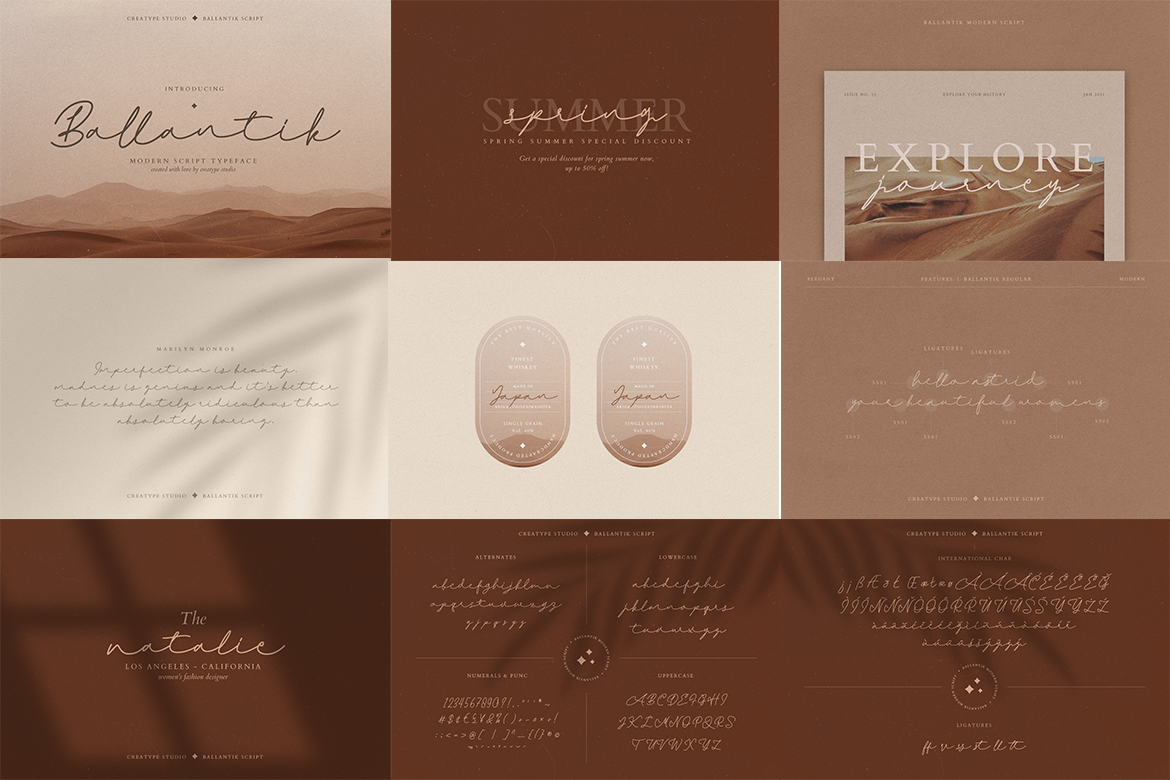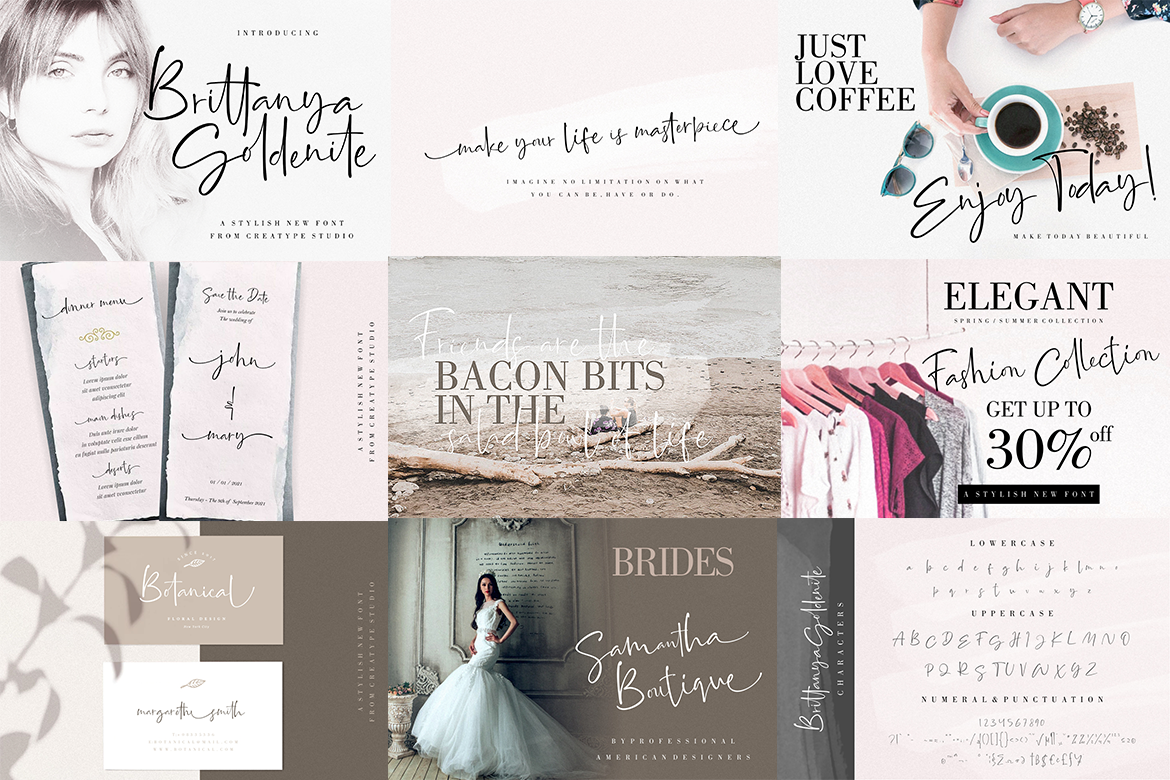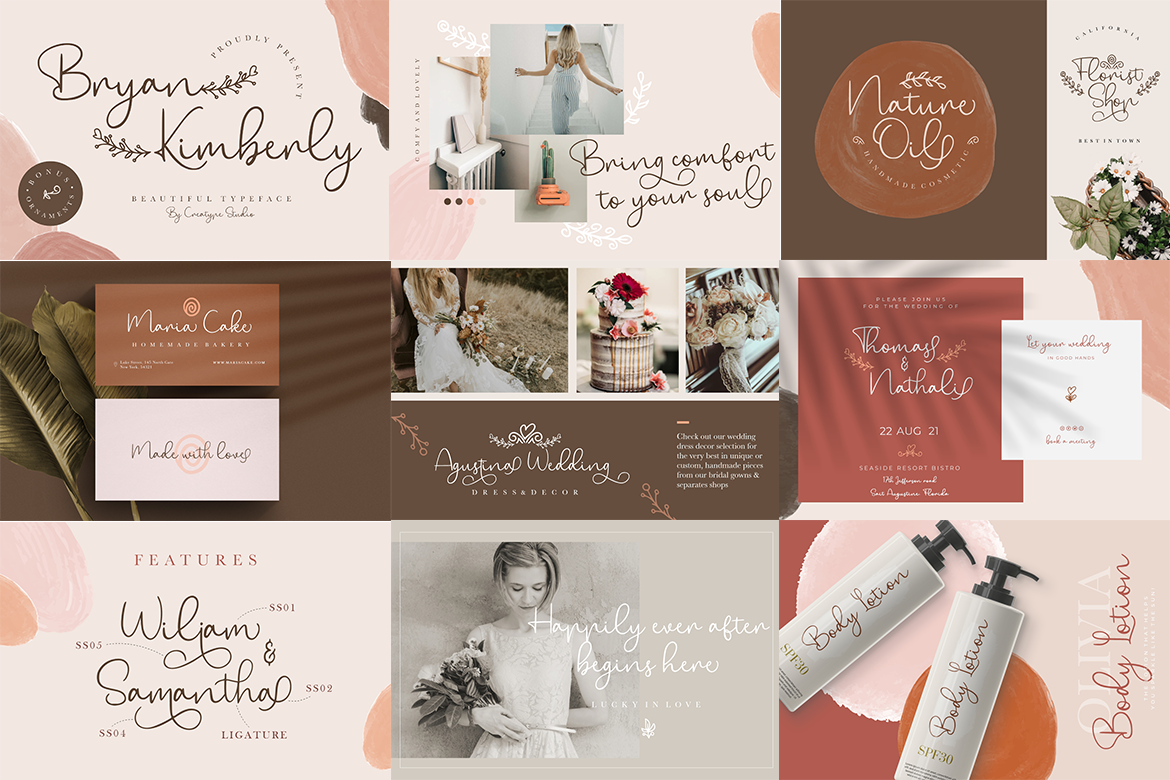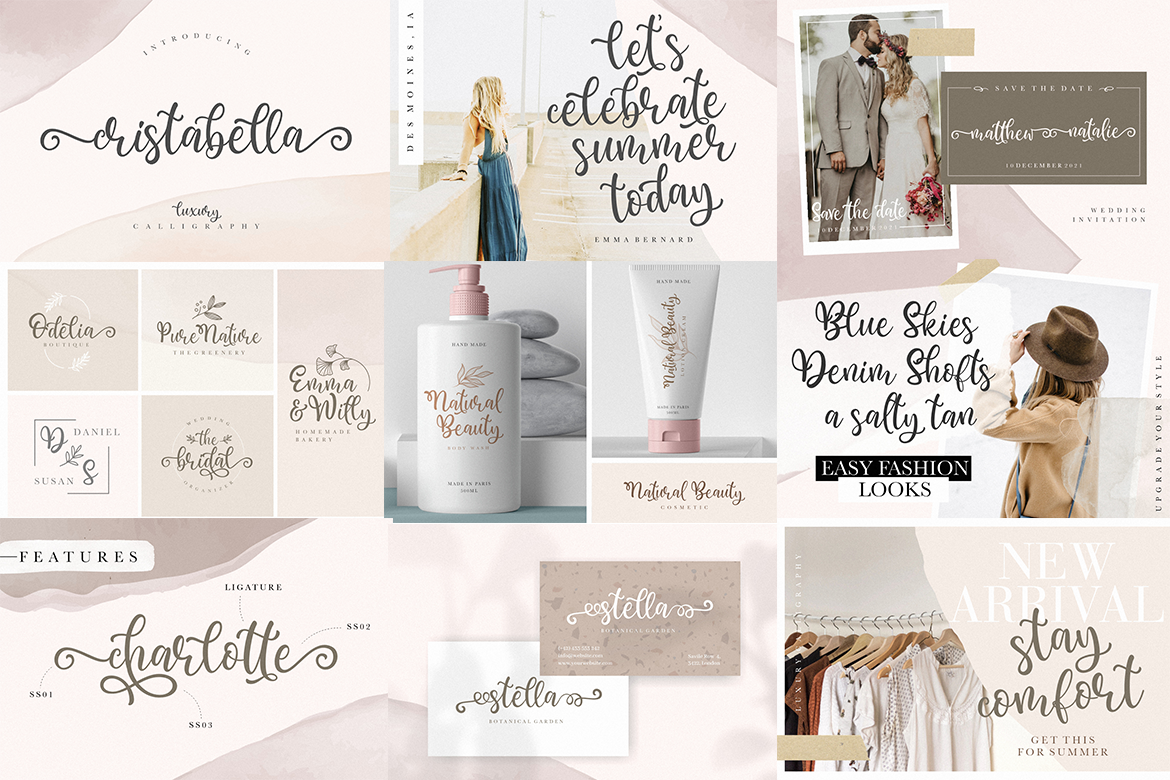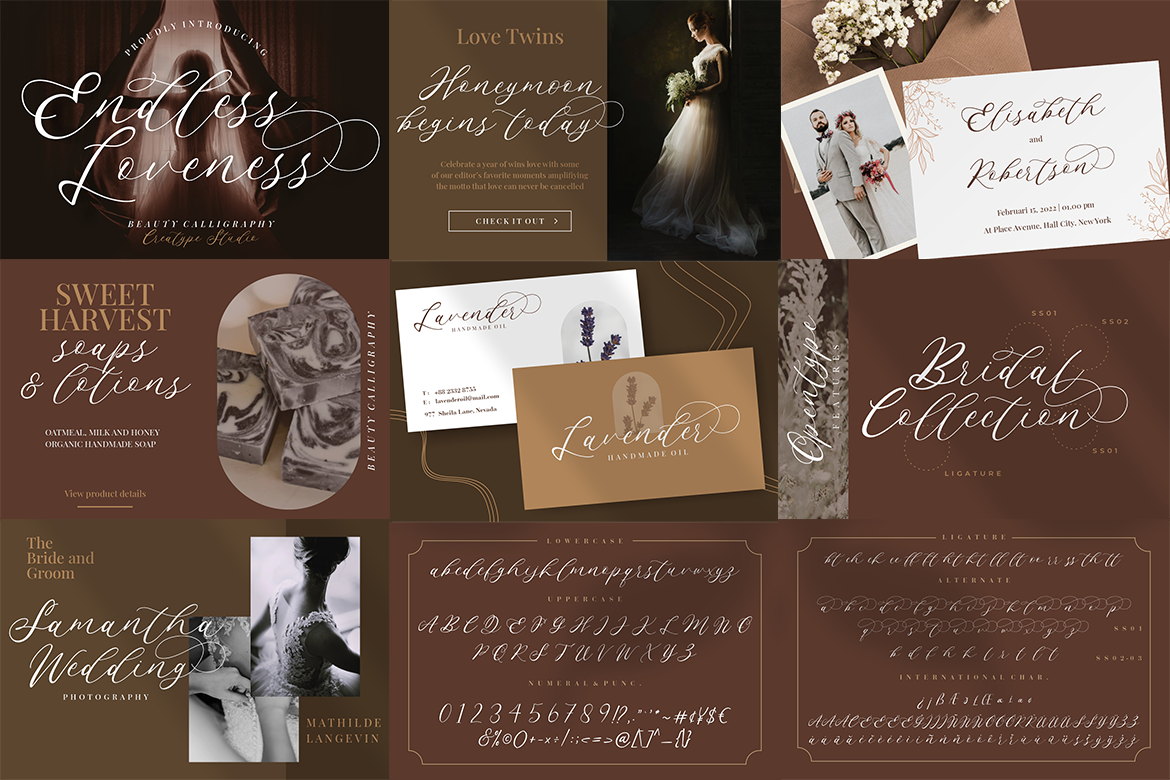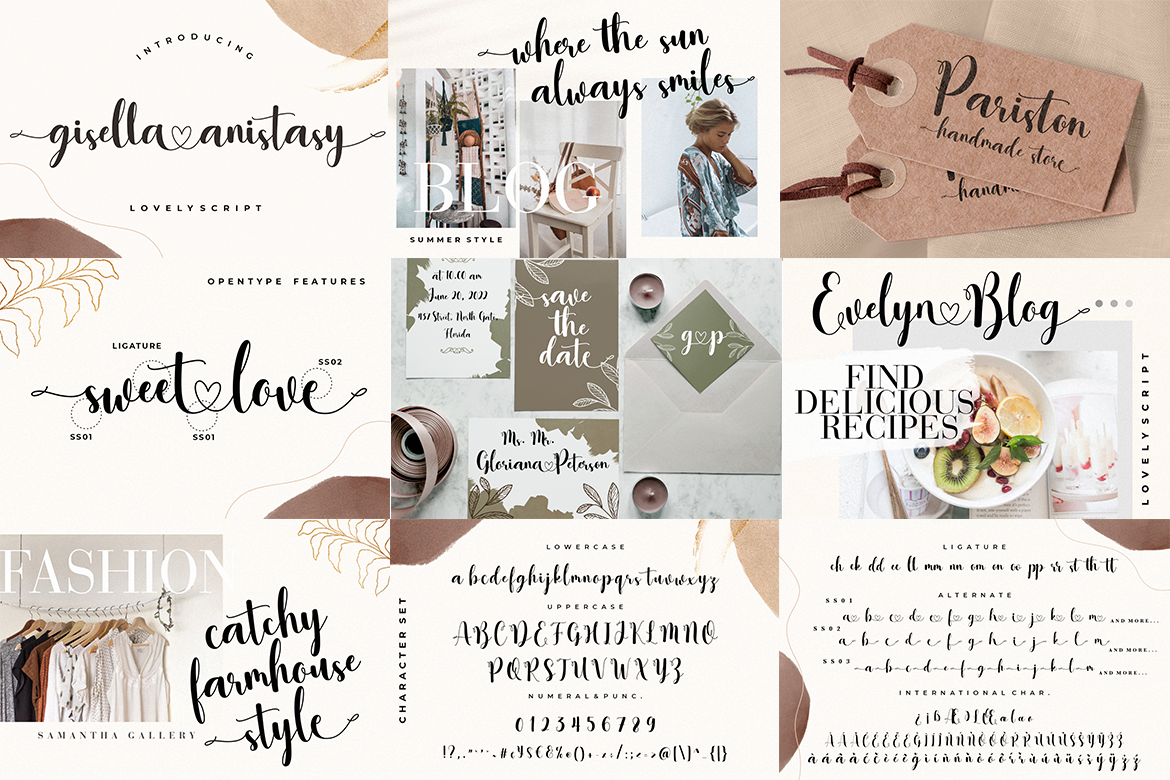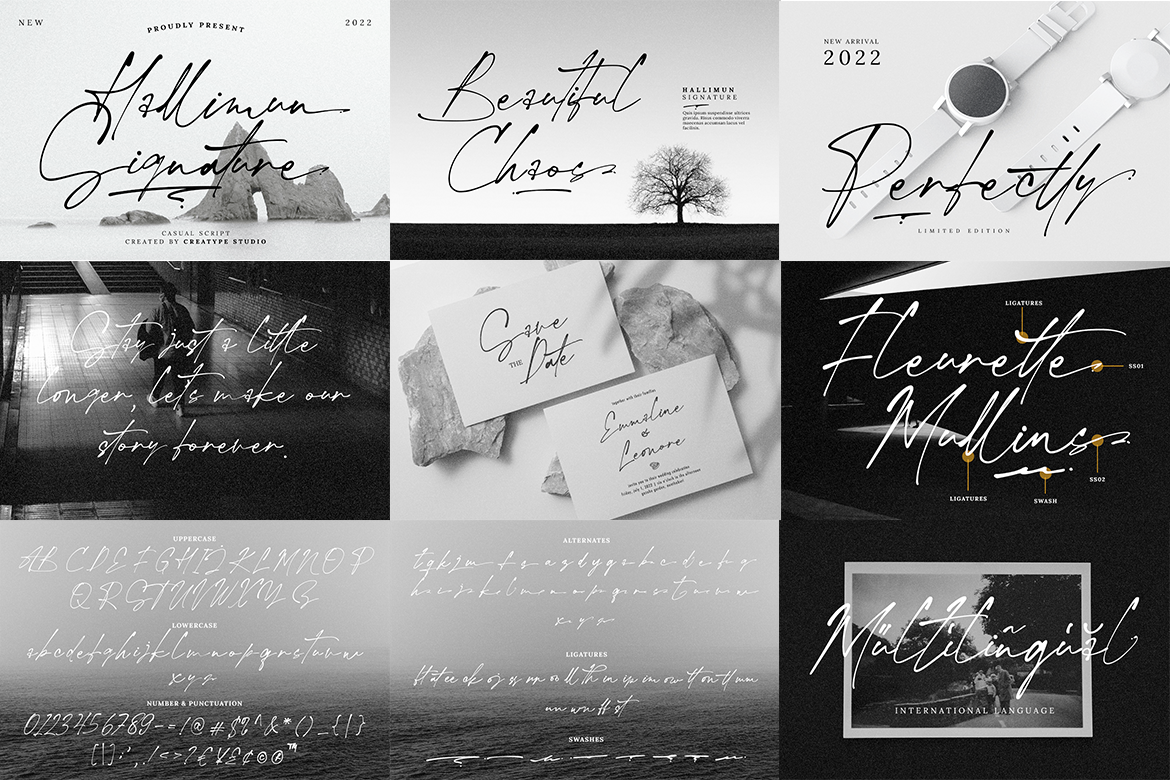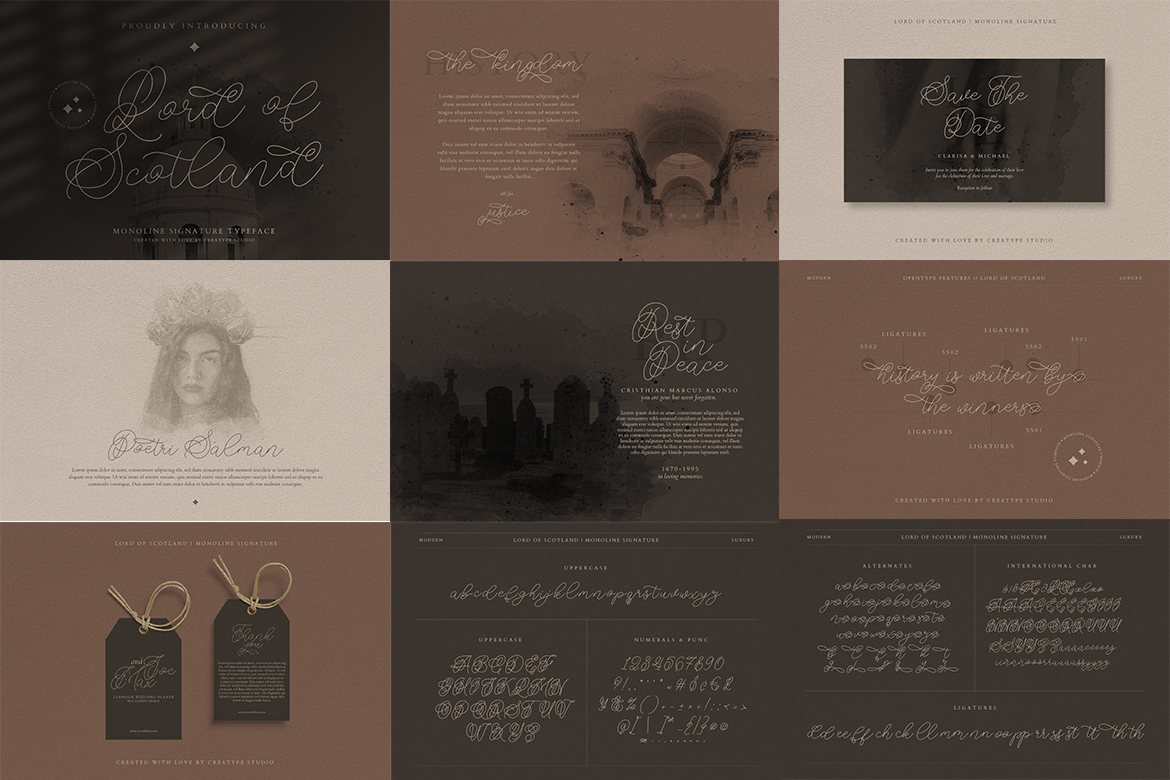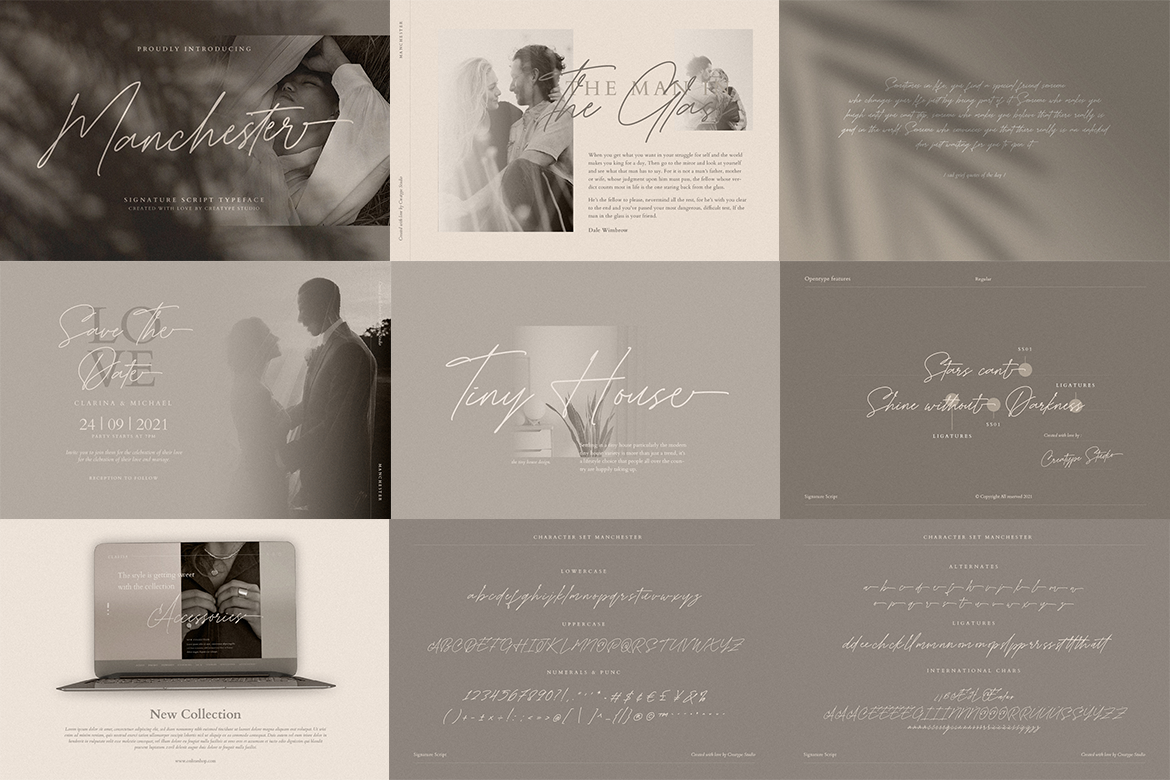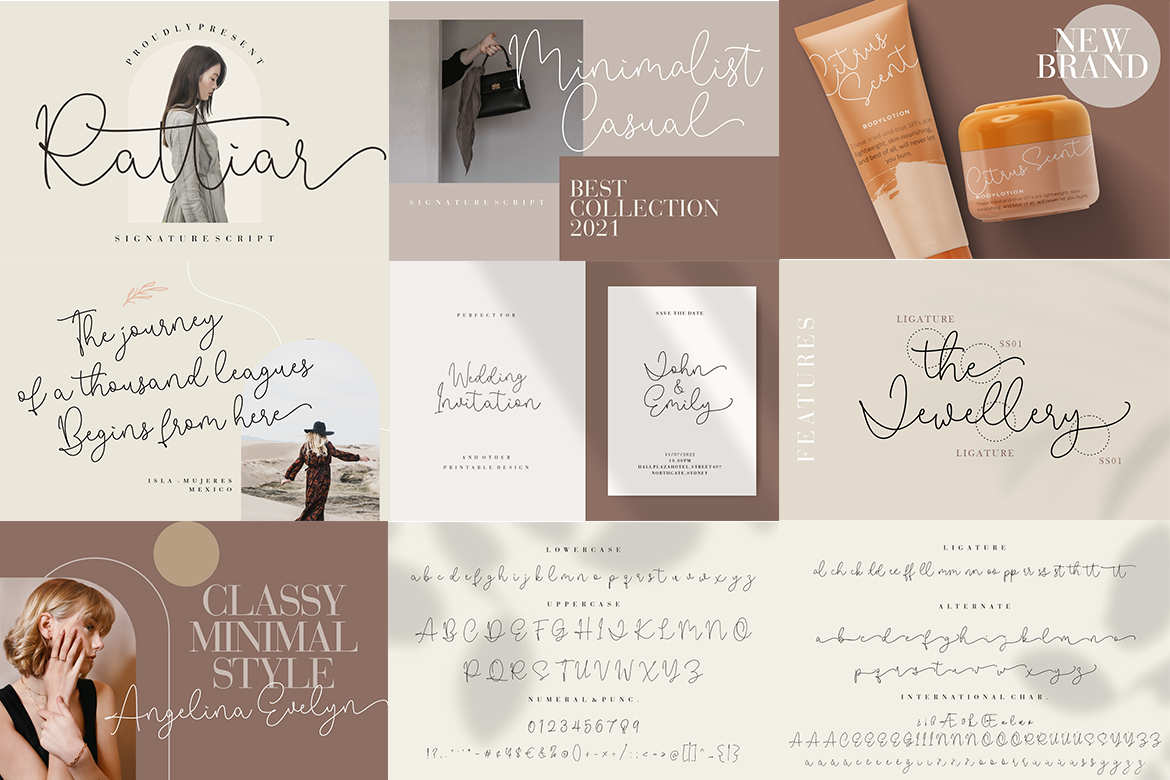
12 Wedding Ceremony Fonts With Luxury and Elegant Touch
12 Stunning Wedding Fonts With Luxury and Elegant Touch
Seems a trivial thing, but the wedding ceremony fonts are a key detail that sets the tone for a wedding celebration. It depicts personality to your invitations, menus, and signage, giving everything a polished and cohesive look.
If you are preparing wedding design projects, you must dive to find inspirative fonts to complete the wedding visual looks in this post!
12 Must-Have Wedding Ceremony Fonts for a Memorable Big Day
Selecting the perfect font for your wedding enhances both style and personality. Discover the following 12 must-have fonts to embelish the special event!
1. Rattiar Signature Script
Rattiar is all about sophistication and charm, with its delicate strokes and elegant flow. This font works wonders for wedding invitations and thank-you notes, with its handwritten style, your text will feel both intimate and refined. The subtlety of the script also leaves a lasting romantic feeling.
2. Manchester Signature Script
Looking for wedding fonts that combine a modern touch with classic elegance? Manchester is your choice. When you’re announcing your wedding, this font offers a sleek, professional vibe that’s still warm and inviting.
You can rely on using the regular glyphs of combine them with loose alternates or simple ligatures to get a more formal look.
3. Lord of Scotland Monoline Signature
Lord of Scotland brings a vintage feel with a modern twist. This versatile font is especially suited for menu designs and bridal shower decorations. Its neat and continuous lines offer a clean and sophisticated look that complements a range of themes, from rustic to contemporary.
4. Hallimun Signature Casual Script
Halimun Casual Script looks crisp, yet it somewhat shows a bit of formality through its sharp and high contrasting strokes. This is one choice that you should add to your list of wedding invitation fonts if you want to convey more lax vibe in formal tone!
5. Gisella Anistasy Lovely Script
Gissela Lovely Script is the romance itself! Its sweeping curves and delicate flourishes make it the go-to choice for wedding thank-you notes, invitations, and souvenir designs. The softness of this script is perfect for adding a dazzling and grace touch to your wedding stationery.
6. Endless Loveness Beauty Calligraphy
Endless Loveness is all about grandeur. Its intricate, flowing style works beautifully for wedding invitations and save-the-date cards, lending them a regal and timeless quality. If you’re going for a fairy-tale or luxury wedding concept, this is the font to set the scene.
7. Cristabella Luxury Calligraphy
Cristabella radiates luxury with its bold flourishes and graceful curves, making it the perfect choice for a wedding ceremony font. This attribute of this font’s character gives a fabulous and elegant flair to various wedding designs, including the signage and invitation.  Instantly, it can elevate any design with elegance and sophistication.
8. Bryan Kimberly Beautiful Typeface
If you want wedding fonts that are bold yet elegant, Bryan Kimberly delivers. It’s perfect for bridal shower decorations and menu designs, with its clean lines and slightly quirky style that adds personality without overpowering the design. This typeface works well in both formal and casual settings.
9. Brittanya Goldenite Stylish Handwritten
Preview_Brittanya Soldenite
Brittanya Goldenite offers a natural and handwritten look that’s both chic and approachable. It has a strong intimate tone while maintaining a modern edge. In addition, its effortless style also makes it versatile enough to fit a range of wedding themes.
10. Besties Matthew Signature
Preview_Besties Matthew
Besties Matthew merges modern minimalism with a personalized touch. Its sleek design suits save-the-date cards, and even corporate branding design needs. This font’s thin lines and simplicity create a bold and professional impression at once.
11. Ballantik Modern Monoline Script
Preview_Ballantik
Ballantik captures a delicate simplicity with its sleek and single-line design, making it a top choice among wedding invitation fonts. Moreover, its minimalist yet chic aesthetic is perfect for invitations and menus, effortlessly complementing a variety of wedding styles with its versatile elegance.
12. Anttelope Luxury Calligraphy
Last but not least, there’s Antelope which exudes dramatic style with its lavish strokes and intricate details. Perfect for wedding invitations and photography, as well as product design and labels since it can beautifully transcribe grandeur and sophistication to your stationery.